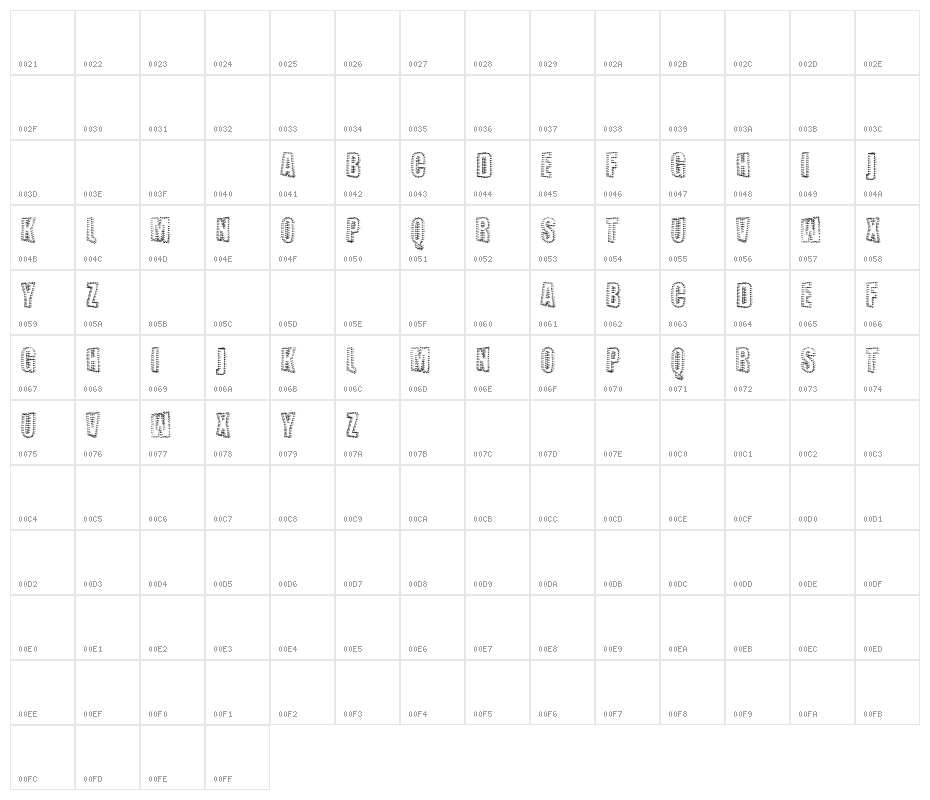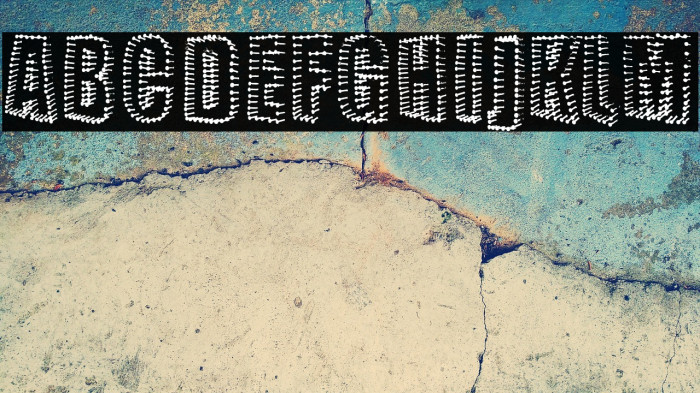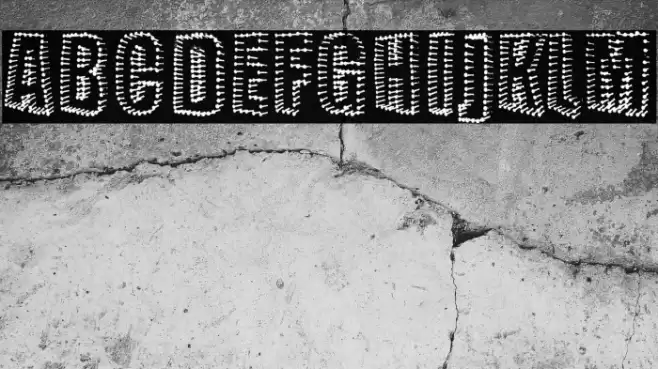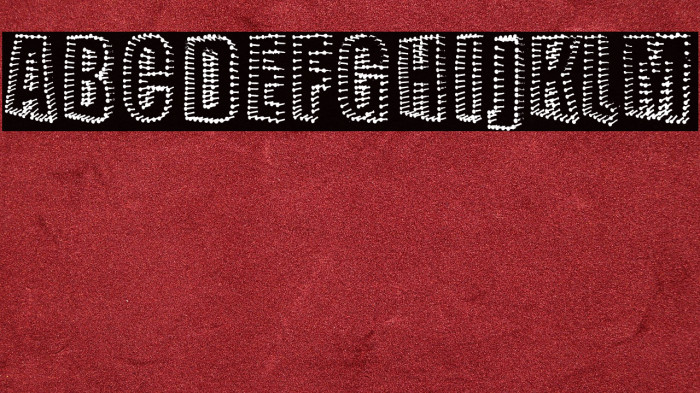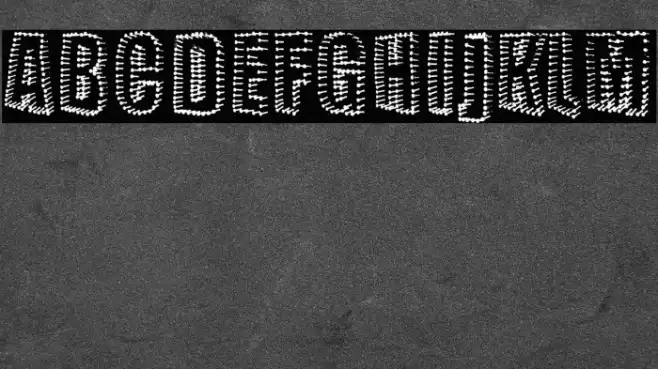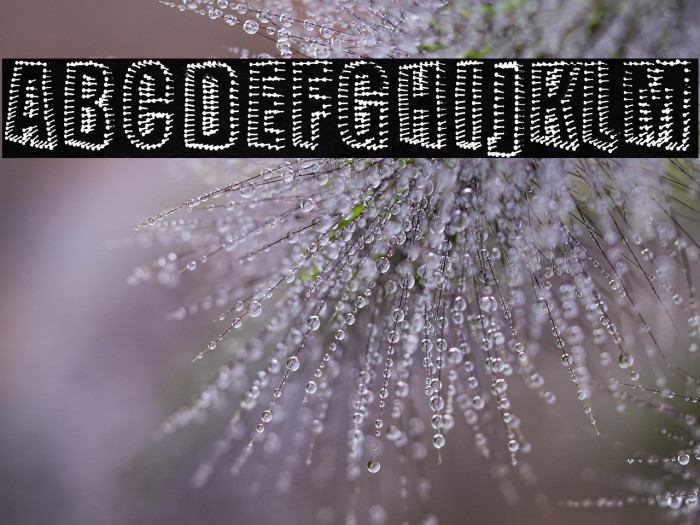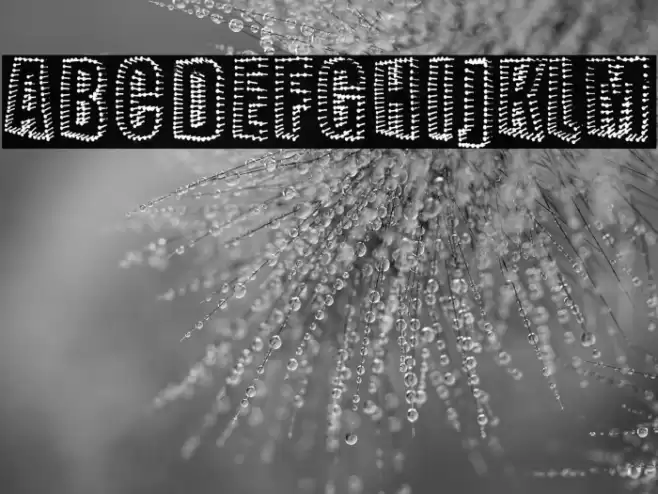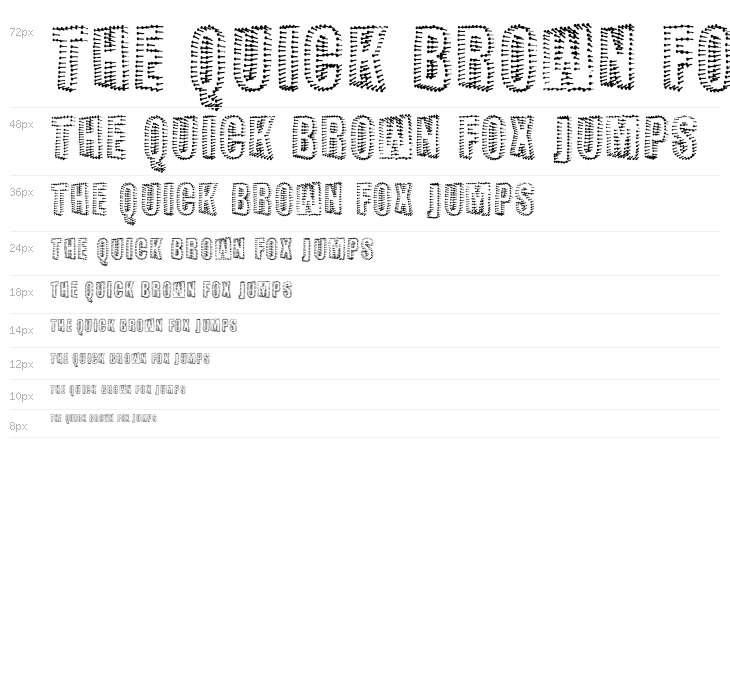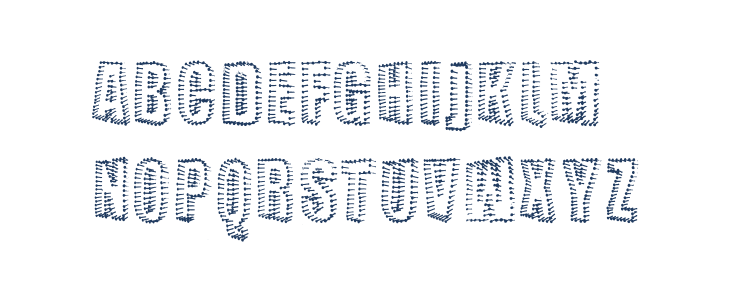
NAILED Font
NAILED Description
This font features a bold, decorative style with a unique texture that resembles a series of horizontal lines or stitches across each character. The uppercase letters are prominent and eye-catching, making them ideal for display purposes. The design gives a sense of movement and energy, with each letter appearing as if it is vibrating or shimmering. This font is not suitable for body text due to its intricate detailing, but it excels in creating a strong visual impact in headlines or logos. The overall appearance is modern and artistic, with a playful yet sophisticated edge.